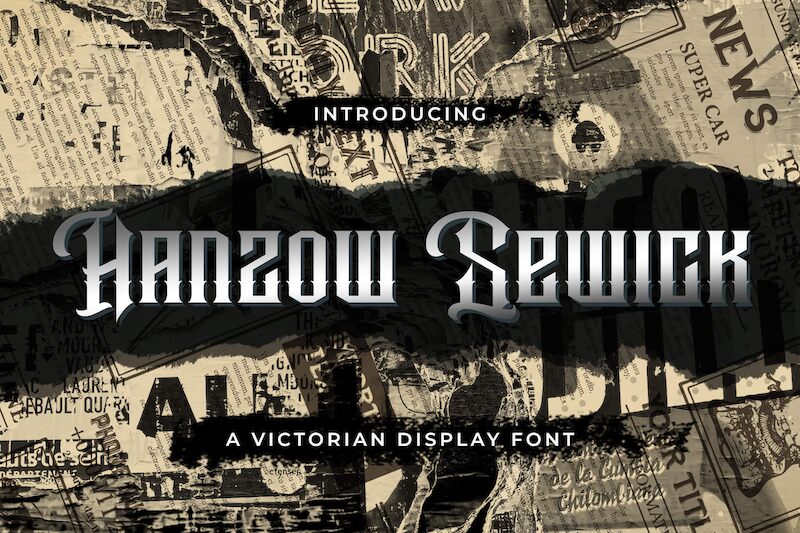
Hanzow Sewick, crafted by StringLabs Creative Studio, embodies a striking fusion of gothic tradition and modern flair. Its condensed form lends an air of intensity and precision, creating a bold visual impact that commands attention. The sharp, intricate lines and unique character shapes evoke a sense of mystique and elegance.
Ideal for branding, editorial design, or any project seeking a touch of drama and sophistication, Hanzow Sewick excels in making statements. Whether used for logos, headlines, or posters, its distinctive aesthetic ensures that your message won't go unnoticed. Dive into the world of Hanzow Sewick to elevate your designs with its unparalleled blend of historical richness and contemporary edge.
Hanzow Sewick